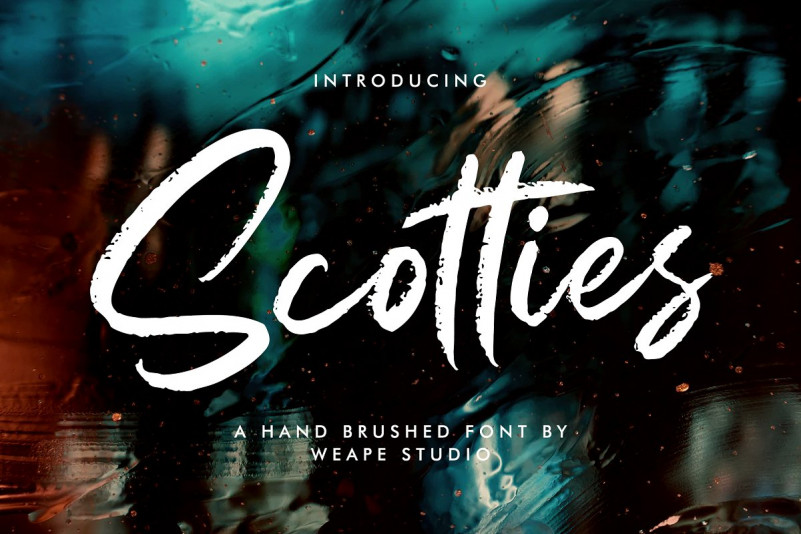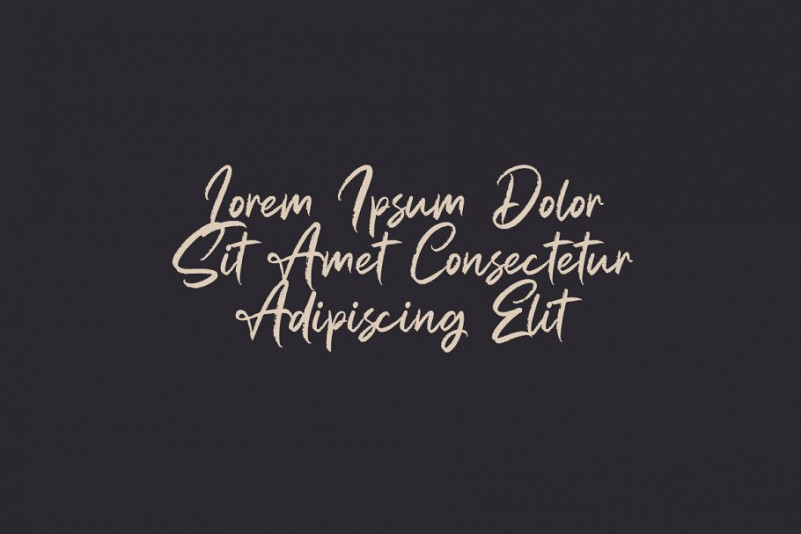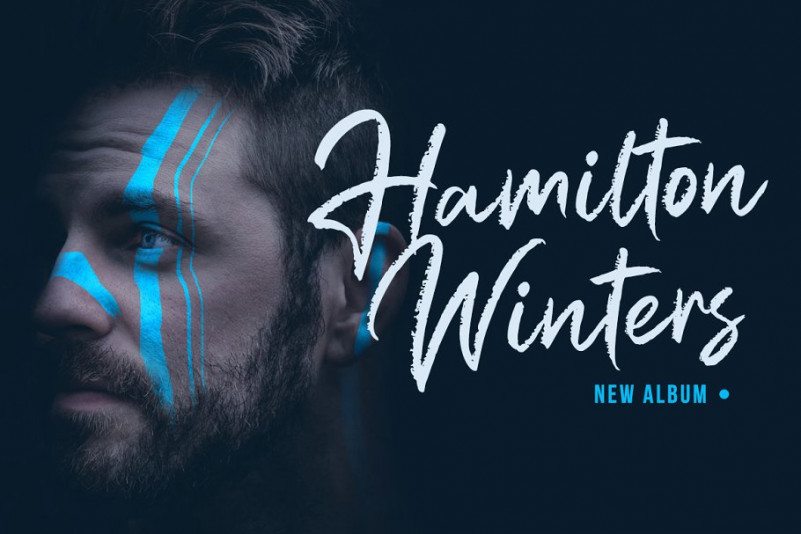
Scotties Font
Introducing Scotties Hand Brushed Font, script with natural dry brush strokes make it beautiful, and the stroke of hand quickly.
Scotties is perfect for signature, branding, wedding, fashion, photography title, poster, social media, ad banner, book cover, packaging, handwritten quotes, greeting cards, and advertising. You can create easily and make it as if you wrote it yourself.